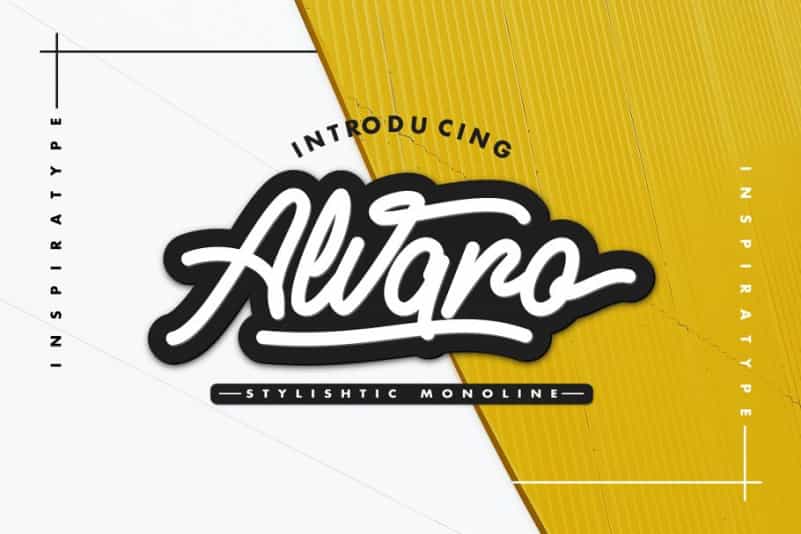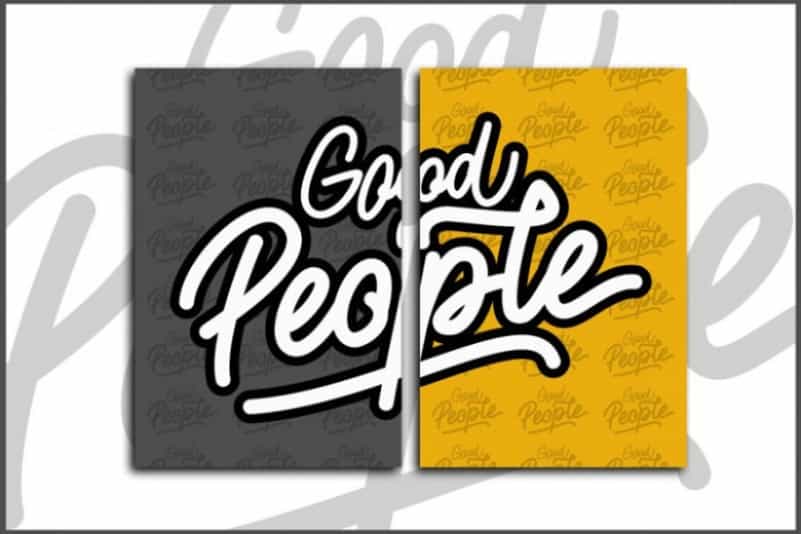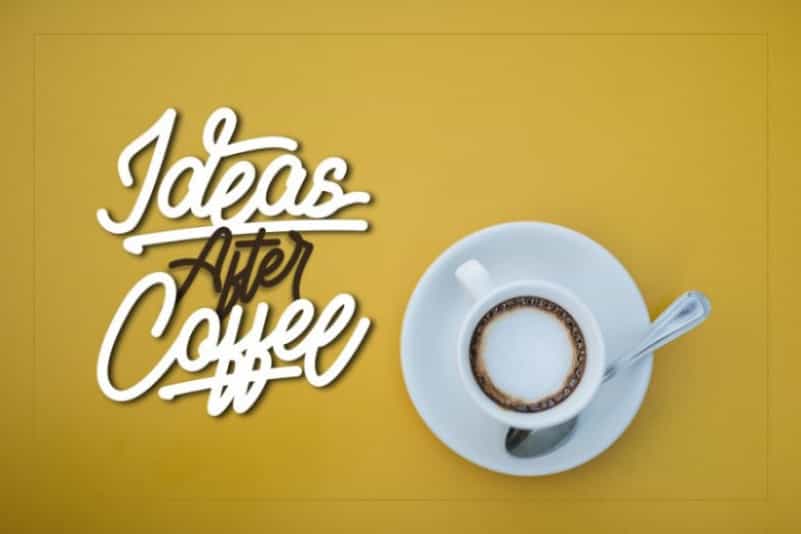
Introducing Alvaro Font. Alvaro Stylistic Monoline Font is a handwritten font display, which was designed based on the classic posters. You can get both uppercase and lowercase characters, numerals, punctuation marks as well as so many variations of each character including OpenType alternates, common ligatures and even additional swash to let you customize your designs. The most suitable for Logotype, Letterhead, Poster, Apparel Design, Label and etc.